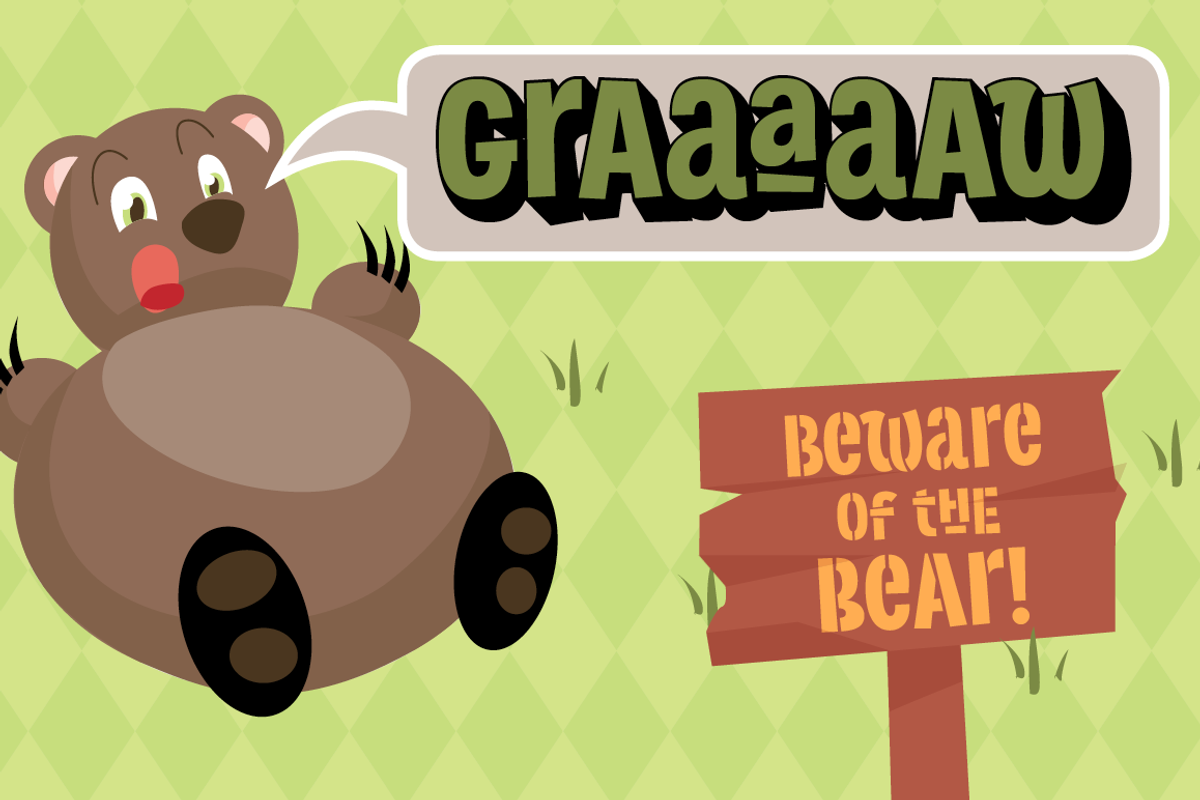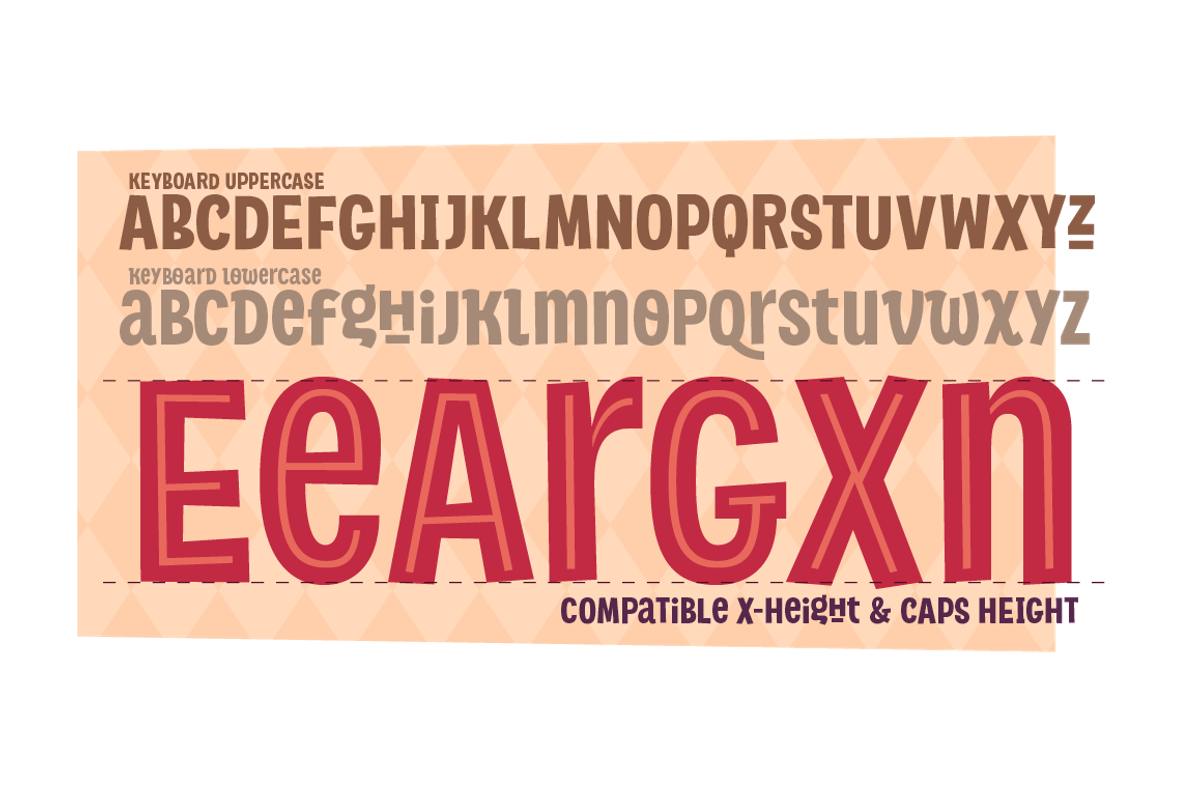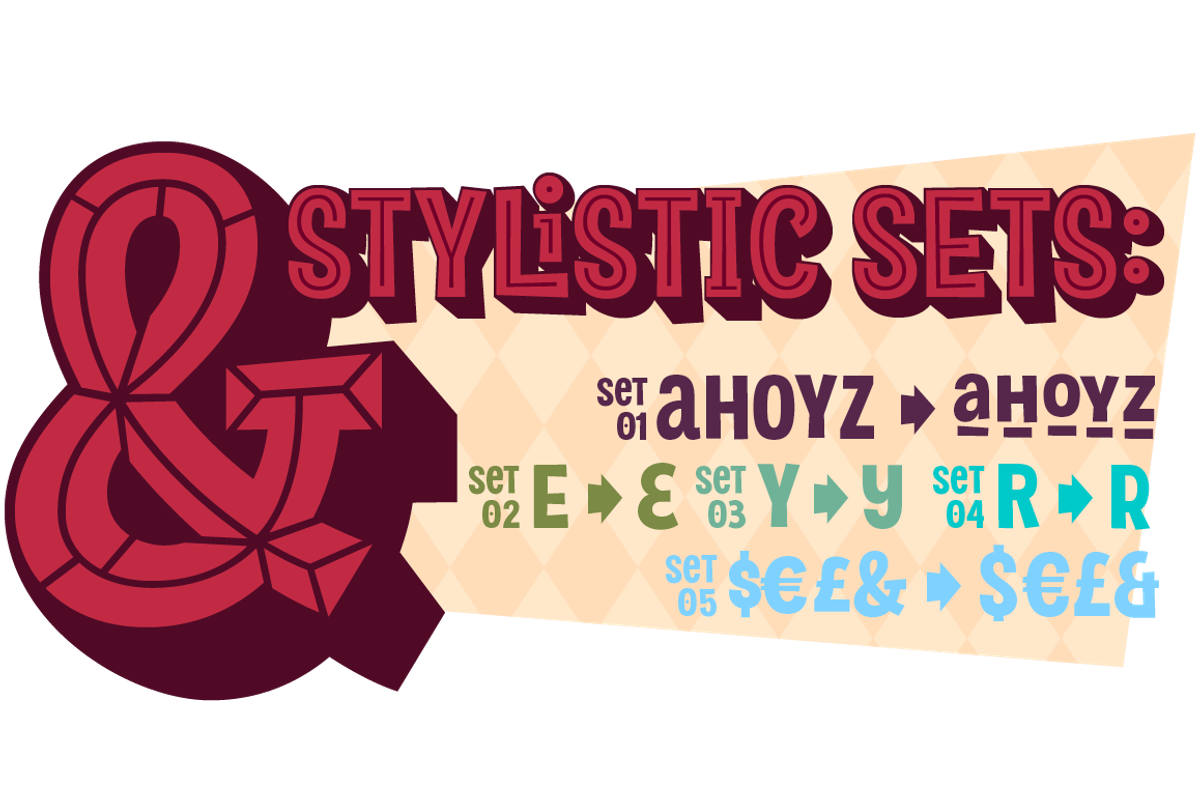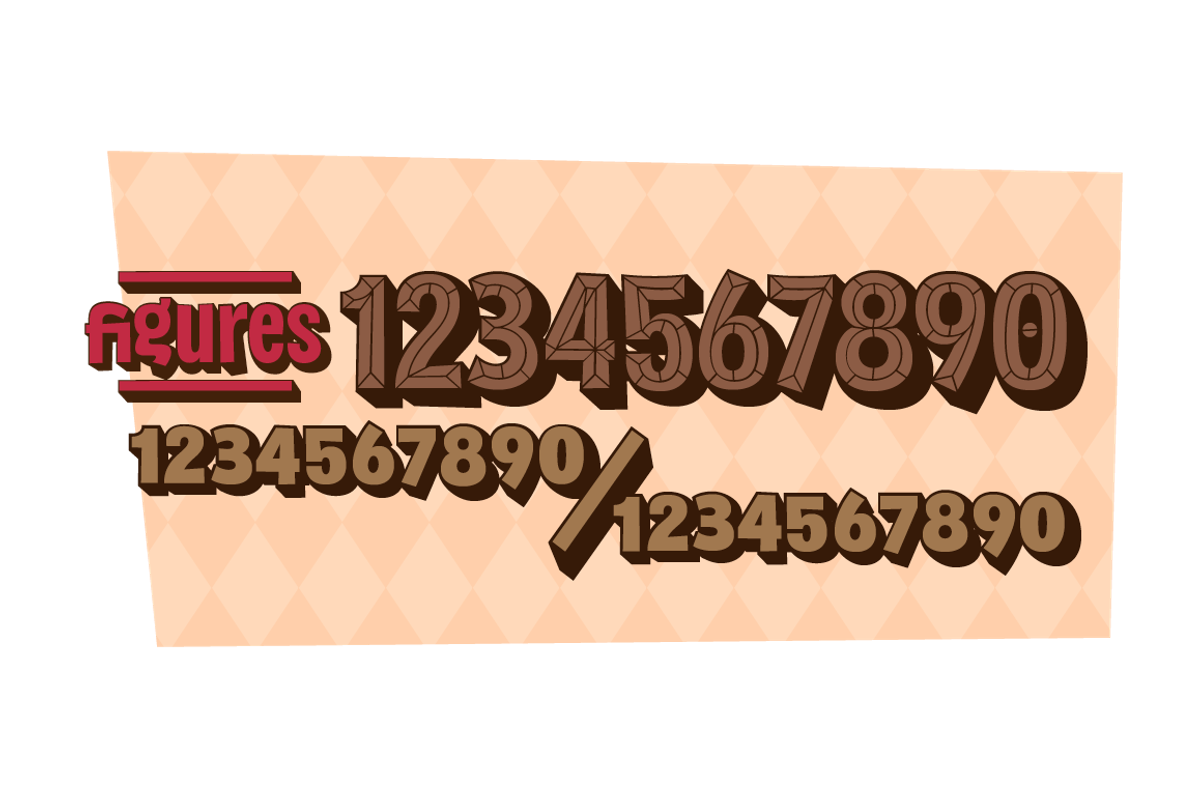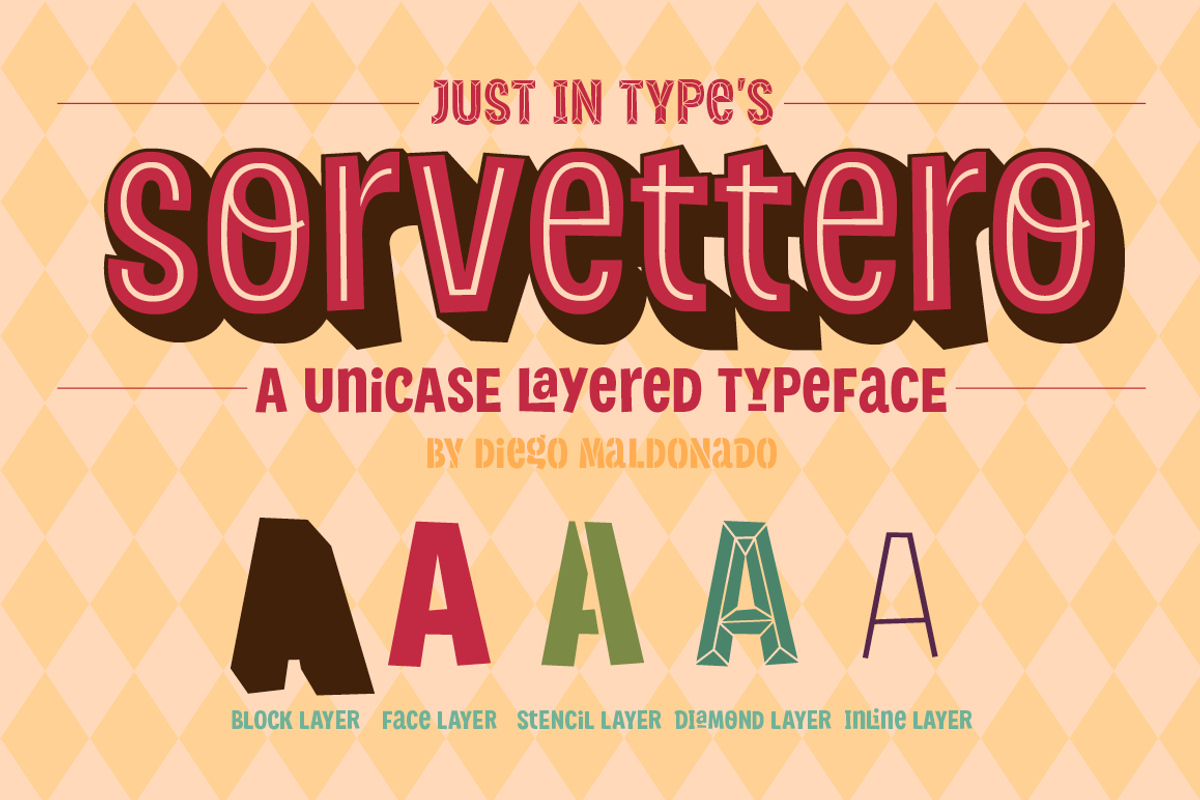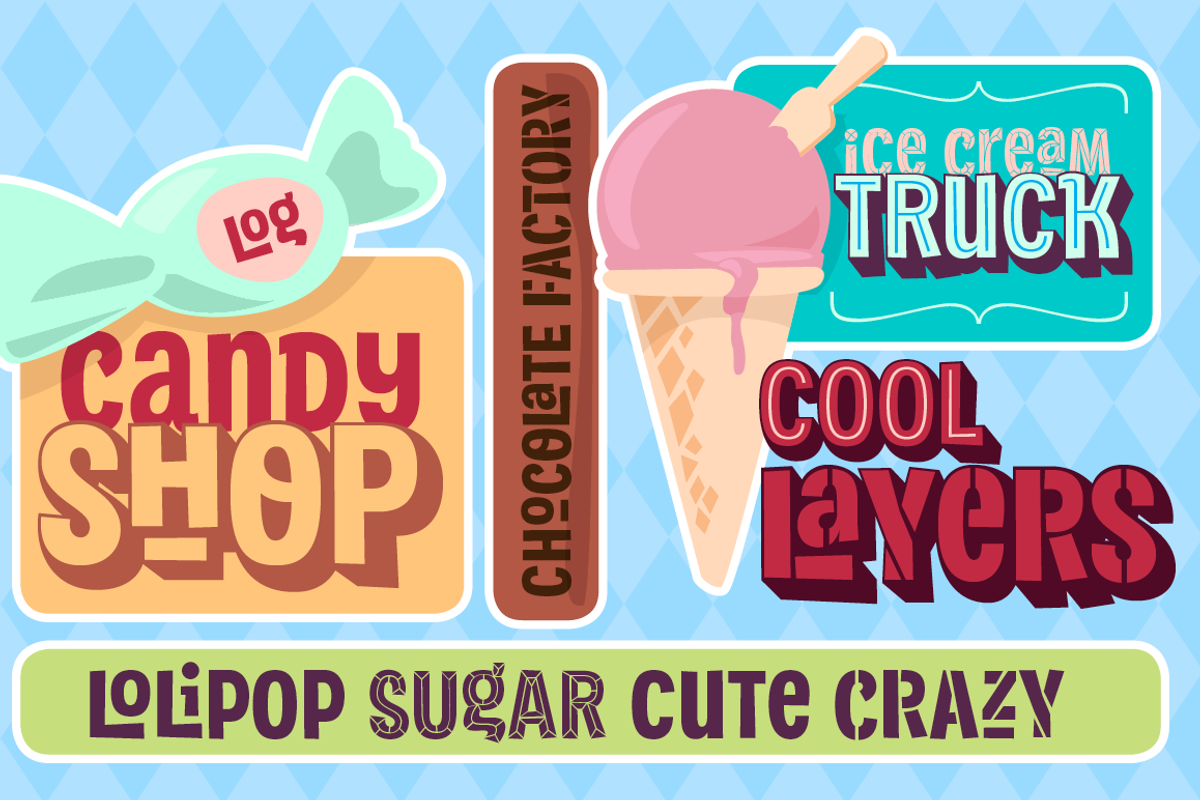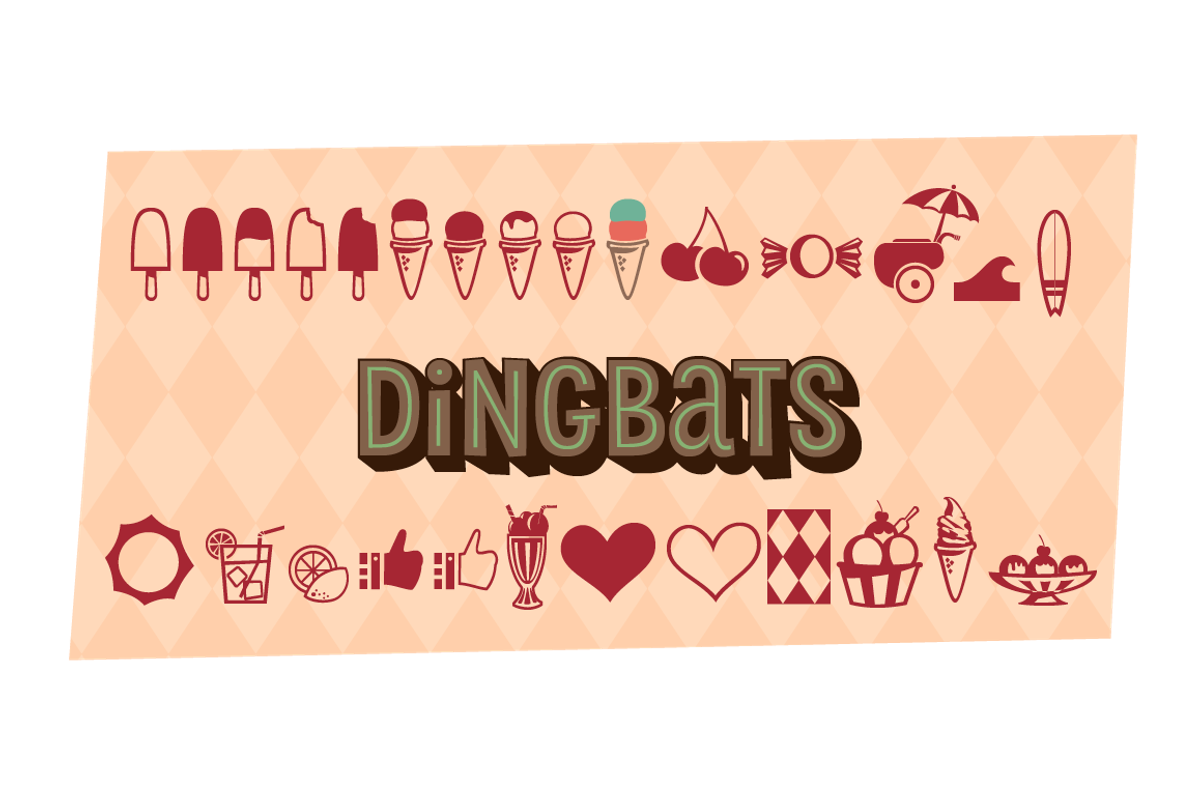
Sorvettero - Desktop + Webfonts
Sorvettero - Desktop + Webfonts by Just in Type is a font selected for branding, posters, packaging, typography.
Why Sorvettero - Desktop + Webfonts is worth a look
Sorvettero - Desktop + Webfonts by Just in Type fits naturally into Branding, posters, packaging, typography.